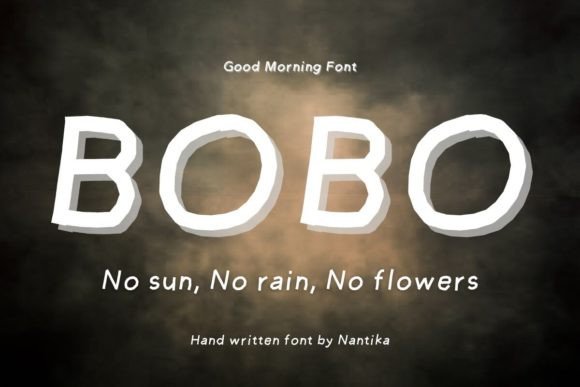
Bobo Font: Unleashing the Magical Charm of Halloween in Typography
The world of typography is vast and wondrous, with fonts ranging from the classic and elegant to the quirky and playful. Among these, the Bobo font stands out as a unique and captivating typeface that embodies the enchanting spirit of Halloween. With its perfect blend of subtle complexity and dazzling appeal, Bobo font is an excellent choice for any creative project looking to add a touch of magic and mystery.
The Inspiration Behind Bobo Font
Bobo font draws its inspiration from the spookiest and most enchanting time of the year – Halloween. This holiday, celebrated on October 31st, is known for its blend of eerie and fantastical elements, from ghostly apparitions and witches to pumpkins and candy. The Bobo font captures the essence of Halloween’s magical charm, making it an ideal choice for projects that require a touch of whimsy and wonder.
Characteristics of Bobo Font
So, what makes Bobo font so special? Here are a few key characteristics that set it apart:
- Quirky yet Extraordinary: Bobo font strikes the perfect balance between quirky and extraordinary, making it stand out from more traditional typefaces.
- Subtle Complexity: The font features subtle design elements that add depth and interest to the text, making it more engaging and dynamic.
- Dazzling Appeal: With its unique and captivating design, Bobo font is sure to grab attention and leave a lasting impression.
- Optimistic Touch: Despite its Halloween inspiration, Bobo font brings a surprising touch of optimism to any project, making it perfect for designs that require a bit of positivity.
Uses of Bobo Font
Bobo font is incredibly versatile and can be used in a variety of creative projects, including:
- Halloween-themed Designs: From invitations and party decorations to social media graphics and blog posts, Bobo font is perfect for any Halloween-themed design.
- Branding and Logo Design: The unique and captivating design of Bobo font makes it an excellent choice for branding and logo design, helping businesses stand out from the competition.
- Packaging Design: Add a touch of magic to your product packaging with Bobo font, making it perfect for seasonal or limited-edition products.
- Digital and Print Media: Use Bobo font in digital and print media, such as posters, flyers, brochures, and social media graphics, to add a touch of whimsy and wonder.
Tips for Using Bobo Font Effectively
To get the most out of Bobo font, here are a few tips to keep in mind:
- Use it Sparingly: While Bobo font is captivating, it can be overwhelming if used excessively. Use it sparingly to add emphasis and create visual interest.
- Pair it with Complementary Fonts: Pair Bobo font with complementary fonts to create visual interest and add depth to your design.
- Experiment with Colors: Don’t be afraid to experiment with different colors and textures to enhance the magical charm of Bobo font.
Bobo font is a unique and captivating typeface that embodies the enchanting spirit of Halloween. With its perfect blend of quirky and extraordinary design elements, subtle complexity, and dazzling appeal, Bobo font is perfect for any creative project looking to add a touch of magic and mystery. Whether you’re designing for Halloween or simply looking for a font that will make your project stand out, Bobo font is an excellent choice.
- What inspired the creation of Bobo font? Bobo font was inspired by the magical charm of Halloween, capturing the essence of the spookiest and most enchanting time of the year.
- What makes Bobo font unique? Bobo font is unique due to its perfect blend of quirky and extraordinary design elements, subtle complexity, and dazzling appeal.
- Is Bobo font suitable for digital and print media? Yes, Bobo font is suitable for both digital and print media, including social media graphics, posters, flyers, and brochures.